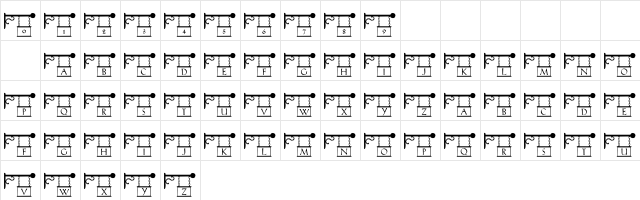
101! Book Store SignZ Regular
Design Context for 101! Book Store SignZ Typeface
101! Book Store SignZ is a composed and adaptable typeface that performs quietly and consistently across a wide range of design contexts.